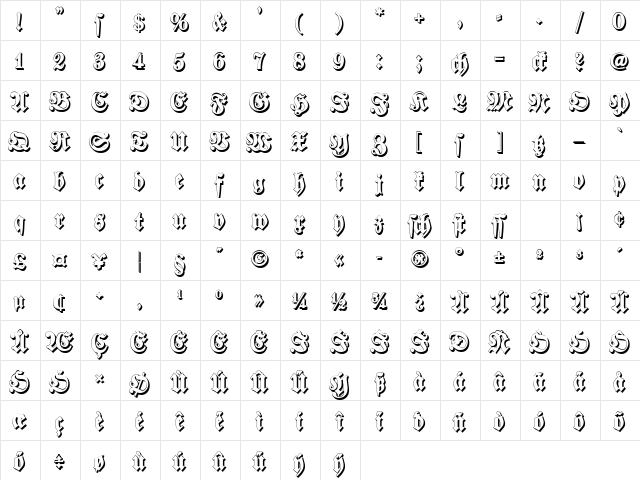
Walbaum-Fraktur Shadow Bold
Design Context for Walbaum-Fraktur Shadow Typeface
Walbaum-Fraktur Shadow channels the dramatic heritage of Fraktur and Gothic scripts, bringing a sense of historical gravitas to any design. Its bold stroke weight gives it real presence on the page.
Well-suited to band logos, craft beer branding, tattoo lettering, and heritage-themed identities.
Font Pairing: Pair with a clean neutral sans-serif for body copy to let Walbaum-Fraktur Shadow's character lead without overwhelming the composition.
Pro Tip: Use Walbaum-Fraktur Shadow sparingly at large sizes. Even a single word set in blackletter can define the visual register of an entire design.